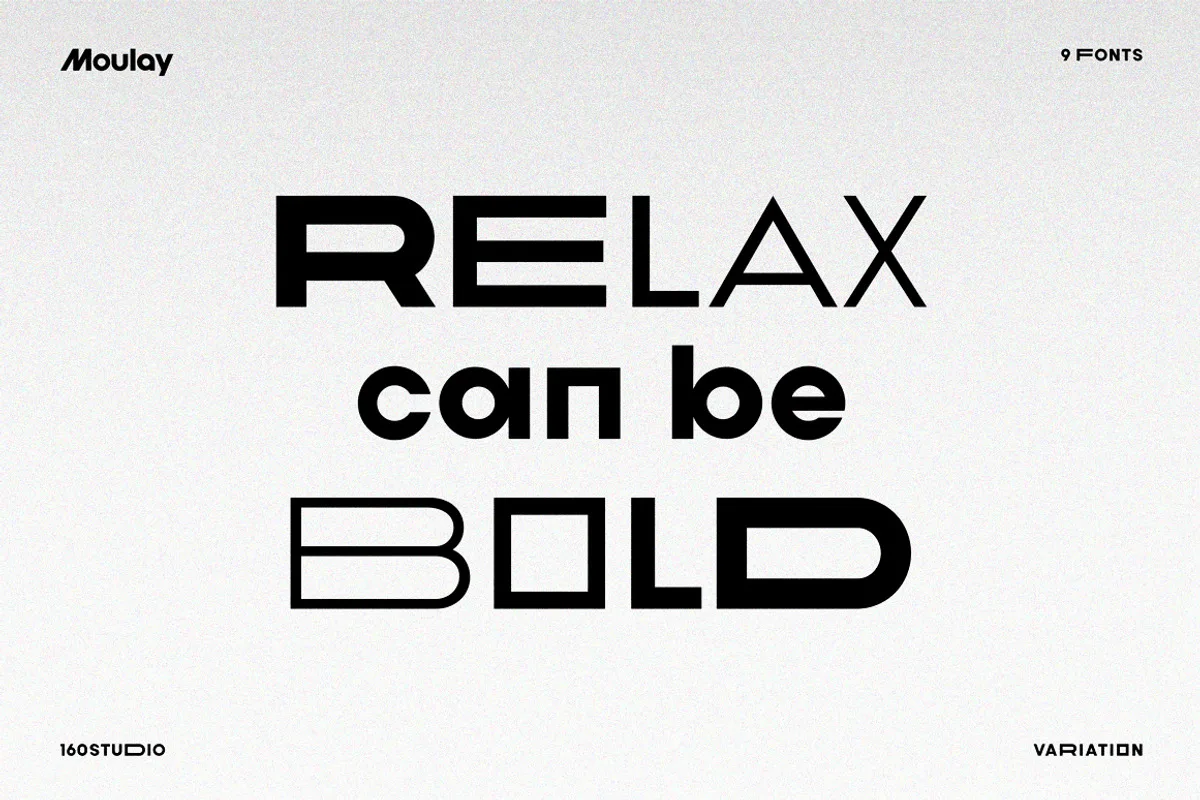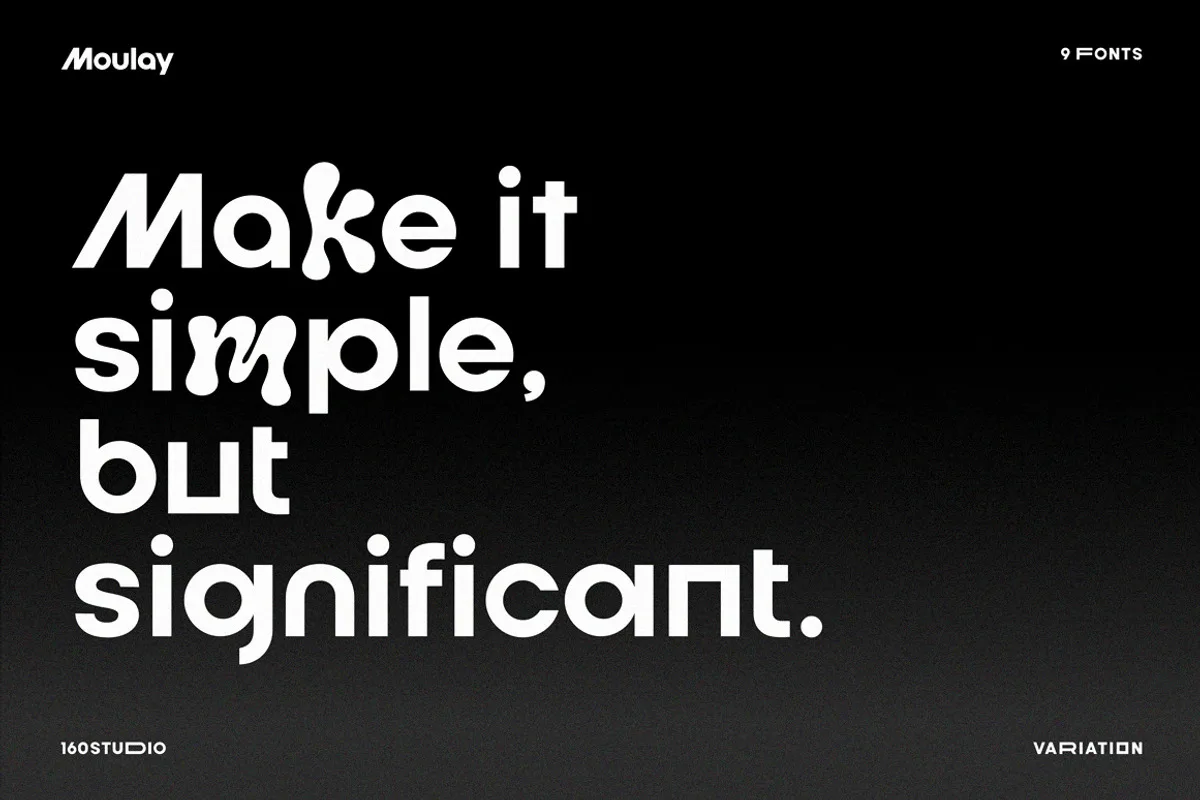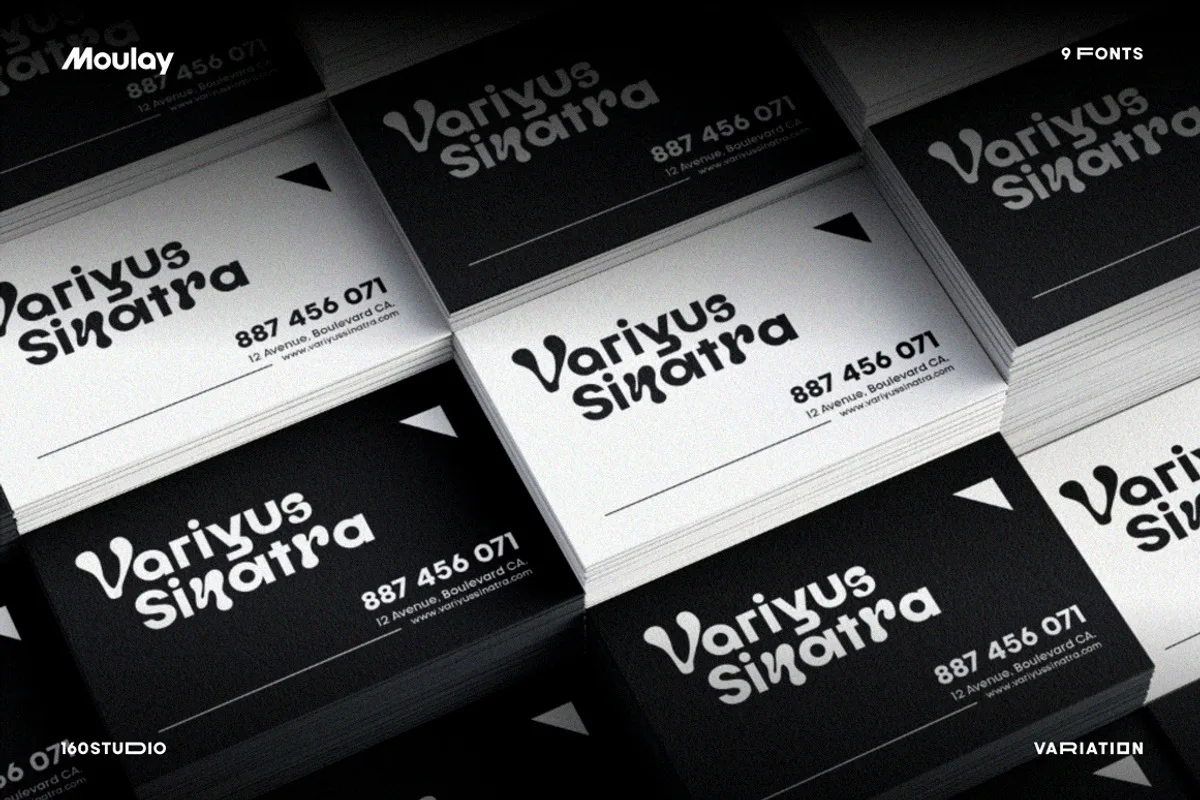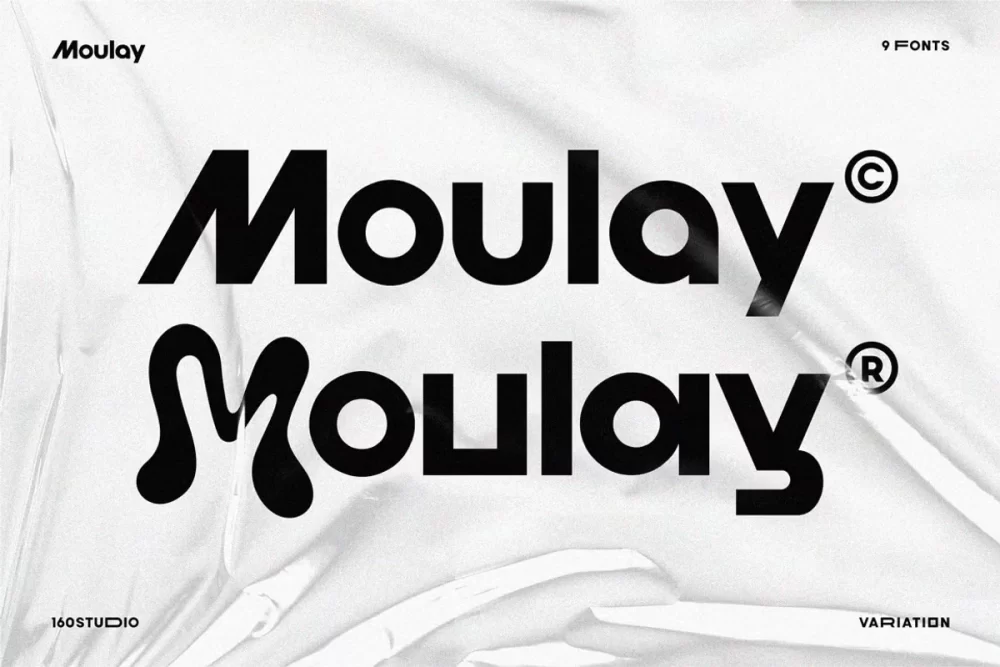
Discover Moulay – a casual, strong, and fun pairing of sans typefaces. These meticulously crafted fonts strike a perfect balance, designed to excel individually and harmonize seamlessly when paired together. Ideal for enhancing your logo, magazine layouts, editorials, displays, quotes, posters, products, and more.
- Uppercase
- Lowercase
- Numbers & Punctuation
- Stylistic Alternate
- Multilingual Support